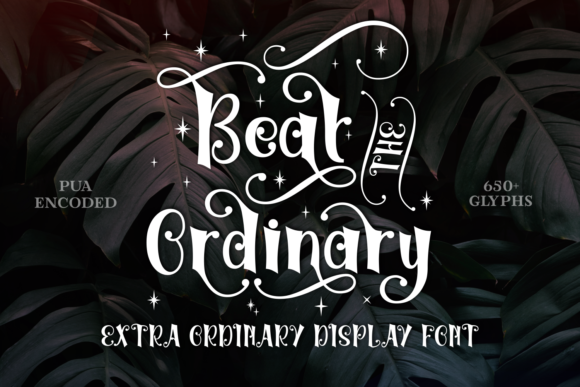
Unlock Your Creative Potential
You know that moment when you’re brainstorming ideas for a new project, and suddenly, everything clicks into place? The words start flowing, and you can almost see the design unfolding before your eyes. It’s exhilarating, isn’t it? But, more often than not, we get stuck in a rut, using the same old fonts and styles that have become all too familiar. That’s where the Beat the Ordinary Font comes in – a game-changing display font that will shake things up and add a touch of magic to your designs.
Beat the Ordinary Font is a bold, playful typeface with stunning swashes that will elevate your work to new heights. Whether you’re a seasoned designer or just starting out, this font is the perfect tool to add some excitement to your projects. With its unique feel and versatility, the Beat the Ordinary Font is an invaluable asset for any designer looking to take their work to the next level.
Beat the Ordinary Font Key Features
- Unique Characteristic: The font features a unique, hand-drawn aesthetic with subtle imperfections, giving it a natural, human feel.
- Font Weight: The font comes in 3 weights: Regular, Bold, and Light, providing flexibility for different design applications.
Beat the Ordinary Font Review
As a designer, I was initially drawn to “Beat the Ordinary Font” due to its unique and quirky style. I wanted to see if it could add some personality to my designs. Here’s my honest review:
- Unconventional style: The font’s eclectic feel makes it perfect for projects that require a touch of whimsy and creativity.
- High legibility: Despite its unusual design, the font is surprisingly easy to read, even at smaller sizes.
- Good font pairing potential: “Beat the Ordinary Font” can be paired with a wide range of fonts to create interesting and unique combinations.
- Limited support for special characters: The font may not support all special characters, which could lead to inconsistencies in your designs.
- Not ideal for body text: Due to its quirky style, the font may not be the best choice for large blocks of text, where readability is crucial.
Overall, “Beat the Ordinary Font” is a great addition to any designer’s toolkit, but it’s essential to use it judiciously. It’s perfect for adding a touch of personality to your designs, but it may not be the best choice for every project. With a little creativity and restraint, this font can be a game-changer for designers looking to add some visual interest to their work.
To get the most out of the Beat the Ordinary Font, try the following:
- Use it in combination with bold or italic text to create emphasis.
- Use it in headings or titles to create a clear hierarchy of information.
The Beat the Ordinary Font is commonly used in:
- Brand identity and logo design.
- Print and digital advertising.
- Web design and development.
- Graphic design and visual communication.
Alternatives to “Beat the Ordinary Font” for Designers
Montserrat is a sans-serif font designed by Julieta Ulanovsky. It’s a popular choice for digital products, including apps, websites, and video games. Montserrat is a clean and modern font that works well for body text and headings. It’s a great alternative to Beat the Ordinary Font when you need a more minimalist and contemporary look.
Comparison to Beat the Ordinary Font: Montserrat is more geometric and modern, while Beat the Ordinary Font has a more rounded and friendly feel. Montserrat is better suited for digital products, while Beat the Ordinary Font is more versatile and can be used in various contexts.